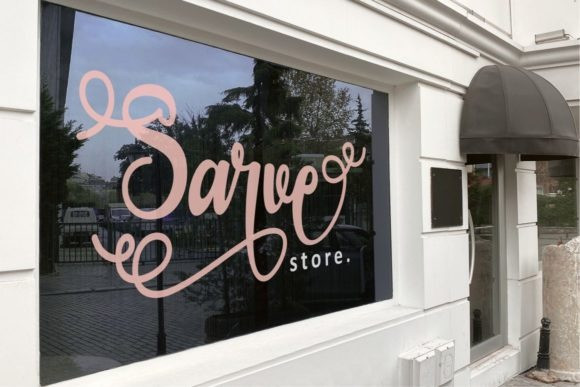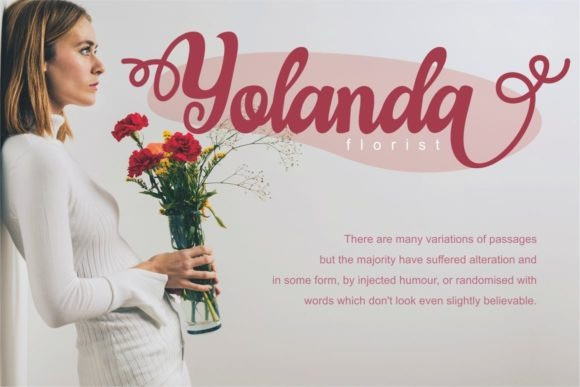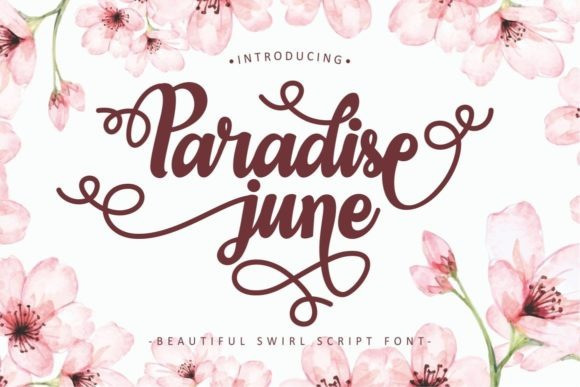
Paradise June Font
Paradise June feels equally charming and elegant. It looks stunning on wedding invitations, thank you cards, quotes, greeting cards, logos, business cards and every other design which needs a handwritten touch.